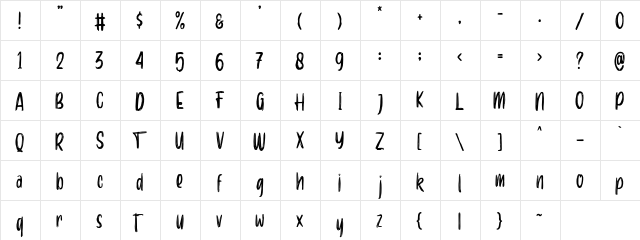
Aerobrush Regular Font Preview
Aerobrush Regular
Aerobrush Regular Font Details
Design Context for Aerobrush Typeface
Aerobrush flows with the natural rhythm of handwritten lettering, making it ideal for designs that call for warmth and personal expression.
Font Pairing: Combine Aerobrush with a simple geometric sans for maximum contrast — the tension between flowing curves and clean structure is a classic typographic pairing.
Pro Tip: Use Aerobrush for short runs of text — names, titles, or taglines. Extended body copy in script faces tires the eye quickly.